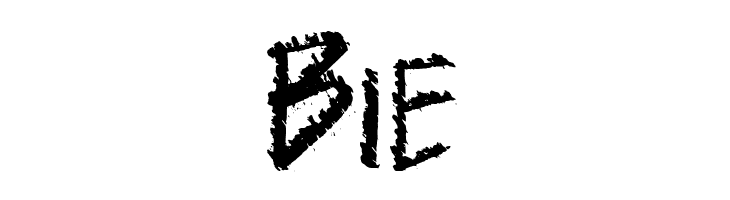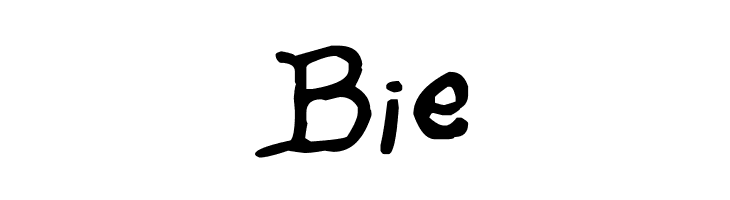
A jagged, spiky font perfect for spooky and Halloween-themed designs.
A spooky, dripping font perfect for horror themes.
A whimsical and spooky horror-themed decorative font.
A bold, spooky font with a blocky, eerie design ideal for Halloween themes.
A spooky, playful font with jagged, uneven letters ideal for Halloween themes.
A bold, dripping font perfect for spooky or Halloween-themed designs.
A jagged, spooky outline font with a playful, hand-drawn style.
A spooky, hand-themed font with bold, angular letters perfect for horror designs.
A bold, horror-themed font with a dripping effect for a spooky aesthetic.
A playful, handwritten font with fluid strokes and a casual feel.
A spooky, decorative font with jagged edges and eerie cutouts, perfect for Halloween themes.
A playful, bone-themed decorative font ideal for spooky designs.
A spooky, bone-themed decorative font ideal for Halloween designs.
A bold, distressed font with a spooky, ghostly aesthetic.
A bold, dripping font with a spooky, horror-themed aesthetic.
A playful, bold font with irregular, chunky letterforms and a hand-drawn aesthetic.
A bold, jagged font with a spooky, distressed style.
A bold, jagged font with a spooky, chaotic aesthetic.
A bold, spooky font with jagged edges and a shadow effect, ideal for Halloween themes.
A jagged, bold font with a spooky, chaotic style ideal for Halloween themes.
A bold, distressed font with a spooky, Halloween-inspired design.
A bold, spooky font with jagged, irregular outlines for a Halloween theme.
A bold, dripping font with a spooky, Halloween-inspired style.
A playful, spooky outline font with jagged edges and a hand-drawn style.
A bold, dripping horror-themed font with a spooky, three-dimensional effect.
A bold, dripping outline font with a spooky, horror-themed style.
A bold, distressed font with a spooky, hand-drawn appearance.
A bone-inspired, eerie font with sharp, elongated strokes.
A spooky, stitched-style font ideal for horror themes.